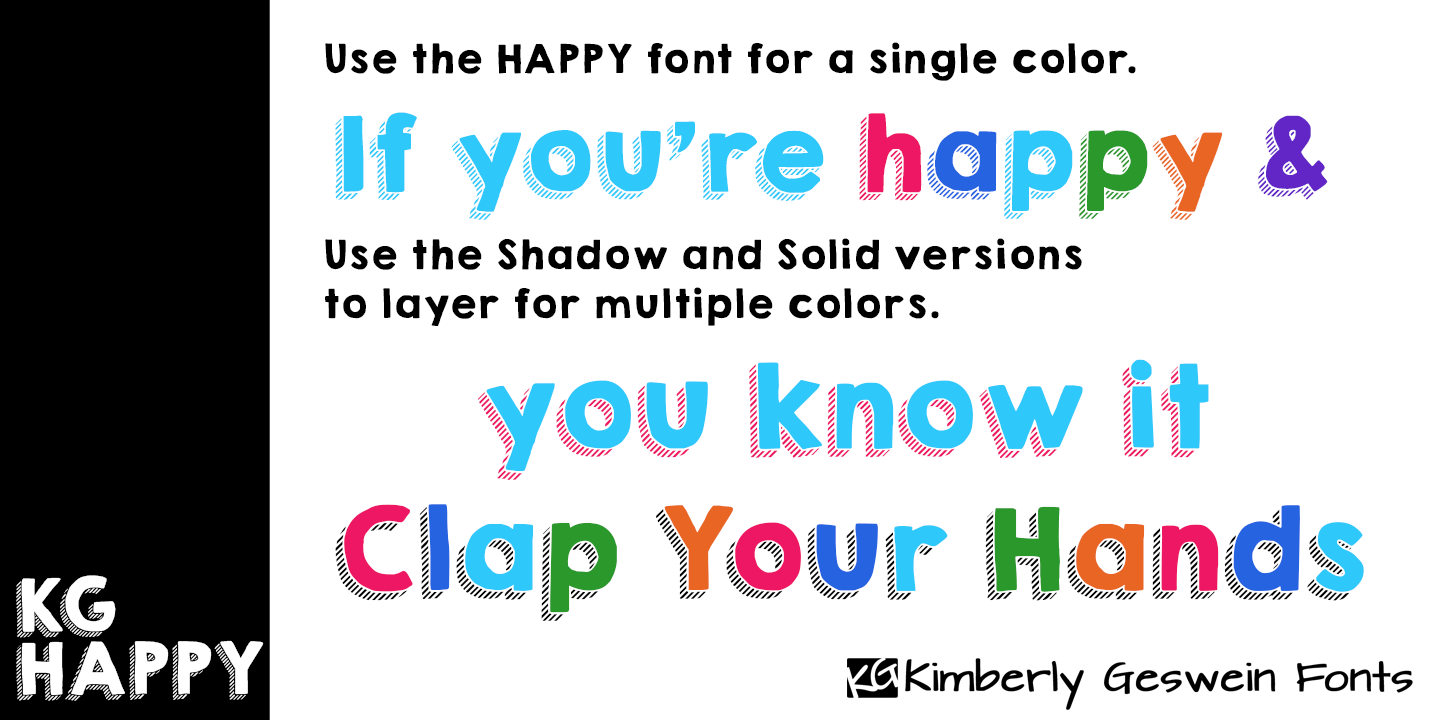
The KG HAPPY Font is perfect for children's birthday party invitations, daycare center signage, cheerful greeting cards, positive motivation posters, joyful event promotions, uplifting wellness center branding, happy family restaurant menus, celebration party graphics, and bright children's book covers.
What makes the KG HAPPY Font so exciting is its infectious joyful energy that instantly radiates pure happiness and positive emotions. This delightful typeface embodies the carefree spirit and genuine cheerfulness that defines pure joy and celebration, creating an immediate impression of warmth and uplifting positivity. The font's happy character communicates the genuine happiness and positive energy that joy-focused businesses need to attract audiences who seek uplifting experiences and celebrate life's precious moments with authentic enthusiasm and heartfelt celebration.
The KG HAPPY Font family includes Regular weight featuring complete uppercase and lowercase character sets, comprehensive numerical collections, essential punctuation marks, and cheerful symbols that maintain the joyful aesthetic throughout your celebration and happiness-focused design projects.
Celebration businesses and happiness-oriented organizations consistently choose KG HAPPY Font Free Download for projects that require authentic joyful appeal and positive emotional communication. This exceptional typeface excels in environments where creating happiness and spreading joy is crucial for attracting families and individuals who value positive experiences and genuine celebration moments. The font's happy character helps communicate the joy and positivity that happiness-seeking audiences expect from established celebration providers and authentic joy-centered service organizations.
The distinctive qualities of KG HAPPY Font reflect the timeless traditions of celebration where genuine happiness, positive emotions, and joyful sharing create memorable experiences and lasting positive memories. Each character demonstrates the infectious enthusiasm and genuine cheerfulness that characterizes successful celebration businesses and happiness-focused enterprises. The font's proportions and spacing create perfect balance between joyful exuberance and clear readability that modern celebration businesses require for effective positive communication and joyful customer engagement.
Contemporary happiness enterprises appreciate how KG HAPPY Font communicates authentic joy and positive celebration. Whether designing materials for children's entertainment venues, creating branding for celebration planning services, or developing marketing for happiness-focused events, this font delivers the uplifting character that distinguishes genuine joy from artificial cheerfulness. The typeface works exceptionally well for businesses emphasizing positive emotions, genuine happiness, and the infectious appeal of authentic celebration and joyful life experiences.
The versatility of KG HAPPY Font extends across multiple celebration applications and happiness marketing initiatives. Children's entertainment centers utilize its joyful character for party materials and family celebration communications. Wellness organizations choose it to communicate their commitment to positive mental health and happiness promotion programs. Event planners rely on its cheerful appearance to attract clients seeking authentic celebration experiences and joyful life milestone commemorations.
Digital happiness platforms benefit from KG HAPPY Font's optimized performance across various celebration applications and joyful communication channels. The font maintains its happy character whether displayed on celebration websites, mobile happiness apps, or digital positive content platforms. This technical reliability ensures consistent brand presentation across all celebration communication platforms and happiness engagement scenarios.
The emotional impact of KG HAPPY Font resonates with audiences who prioritize happiness and seek positive experiences that celebrate life's joyful moments and create lasting positive memories. The typeface serves as a visual celebration of pure joy and positive emotions that helps happiness businesses build loving relationships with customers who appreciate authentic celebration and genuine positive experiences. This connection to pure happiness and joyful celebration makes it invaluable for establishing memorable celebration brand identities.
Celebration marketing specialists and happiness design professionals recognize KG HAPPY Font as an essential tool for authentic joyful branding. The font captures the essence of pure happiness while making joyful celebration accessible to contemporary businesses who want to communicate their commitment to positive emotions, genuine celebration, and the infectious appeal of authentic happiness and joyful life experiences in today's celebration-focused marketplace.